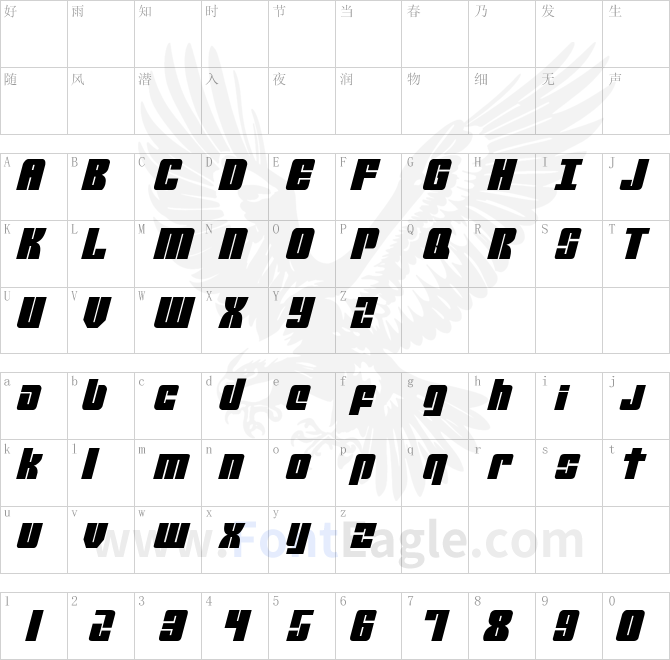
Mobile-Infantry-Italic-copy-1- is a great font, widely used in graphic design, single-page menu design, poster design and other fields, and is deeply loved by designers.Mobile-Infantry-Italic-copy-1- download.